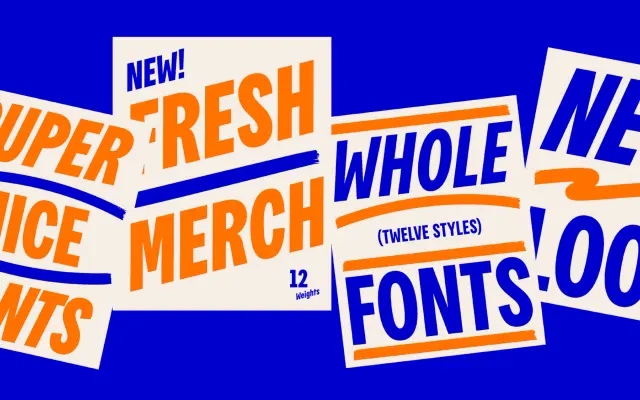
F37 Haggler
A punchy compact grotesque pitched at London market traders and retail signage, where Black and Bold shout from a stall front.
A compact grotesque by Rick Banks, drawn with London street markets in mind. Twelve styles run from Regular to Black with matching italics. F37 set the family against shop signage, clearance offers and the cadence of a haggling trader, and pair it with F37 Zagma Mono for receipts and pricing details. Useful for retail identity, food markets, posters and any brand that wants a sturdy, slightly cheeky voice.
F37 set Haggler against London market traders and street-sale energy, sample lines name Portobello Road, Rodney from Only Fools and Horses and shop signage. The drawing is a sturdy, slightly compressed grotesque with strong personality at heavy weights.